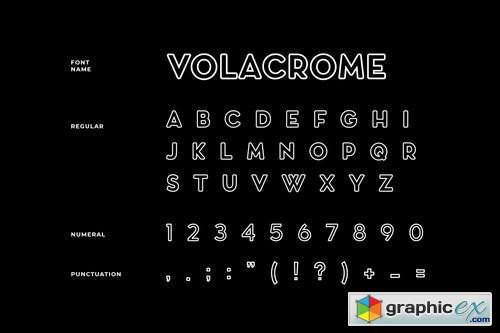
Volacrome Sans Serif Display Font
Volacrome is moderated sans serif style fonts with a touch of minimalist design, produces beautiful and elegant fonts, and is supported by ligatures and more font substitutes with all characters brought in will make you explore your design style more easily, with various alternative styles that allow for logos, posters, party, covers, digital promotion , sci-fi futuristic, logo, modern, tagline, techno and more, so what are you waiting for?